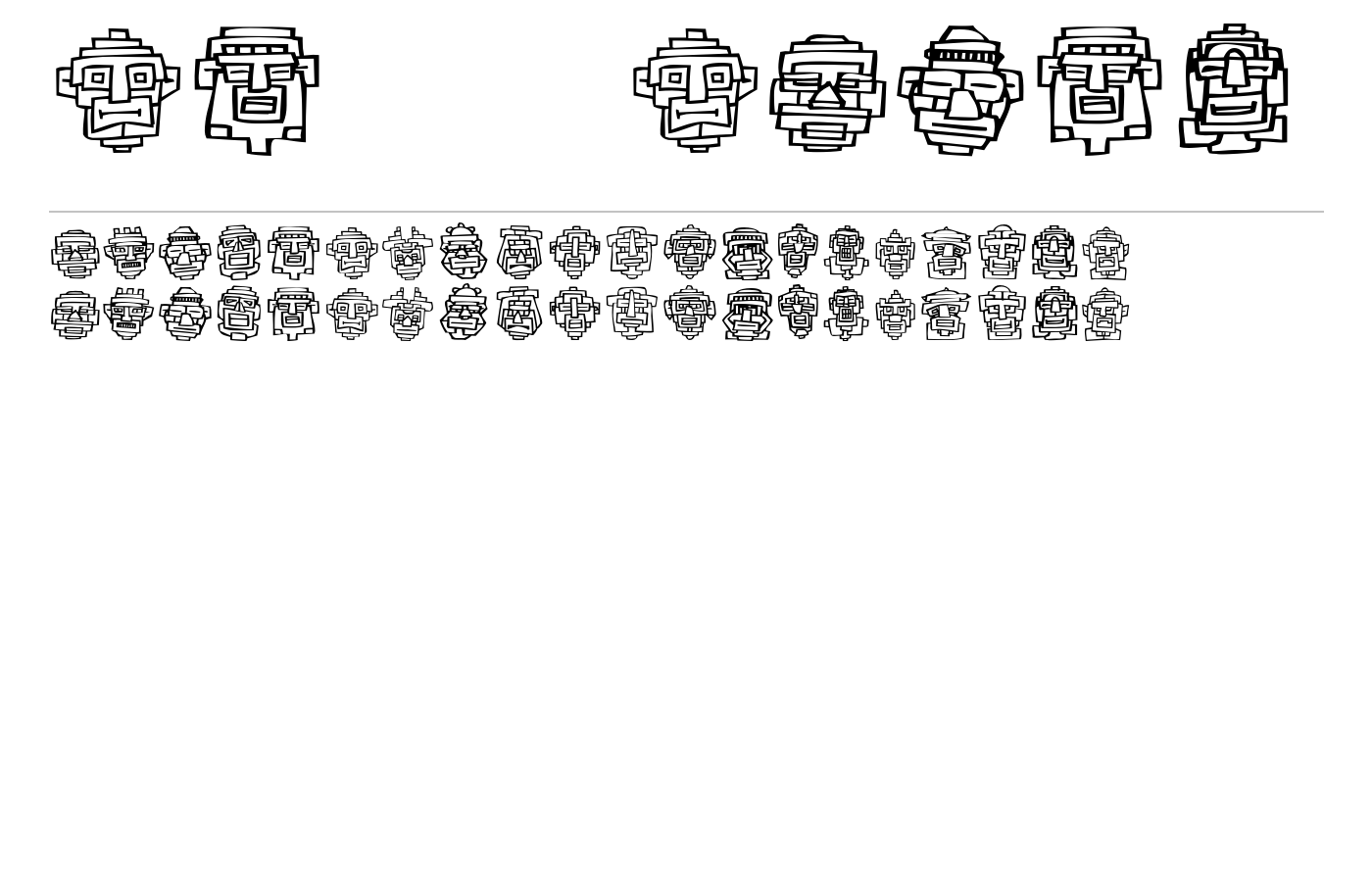
FE 20 Faces Font is a creative, playful display typeface featuring abstract, geometric faces composed of bold, varying line weights that give it a hand-drawn, artistic feel. Its unique, decorative style makes it perfect for eye-catching headlines, logos, and artistic projects seeking a quirky, modern personality with a tribal or ethnic flair. This font works best in expressive branding and creative designs where a strong, unconventional visual impact is desired.
FE 20 Faces Font
About FE 20 Faces Font